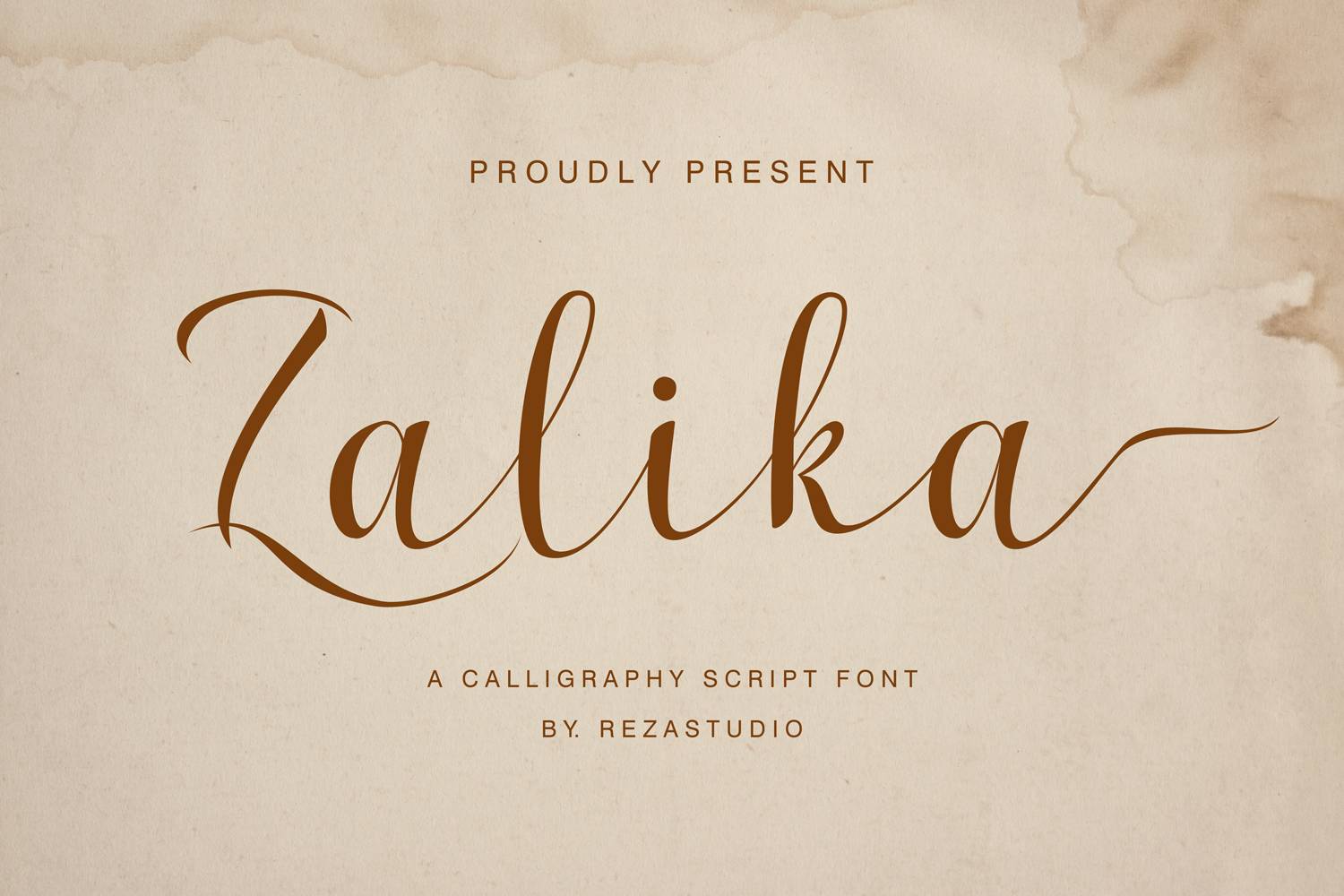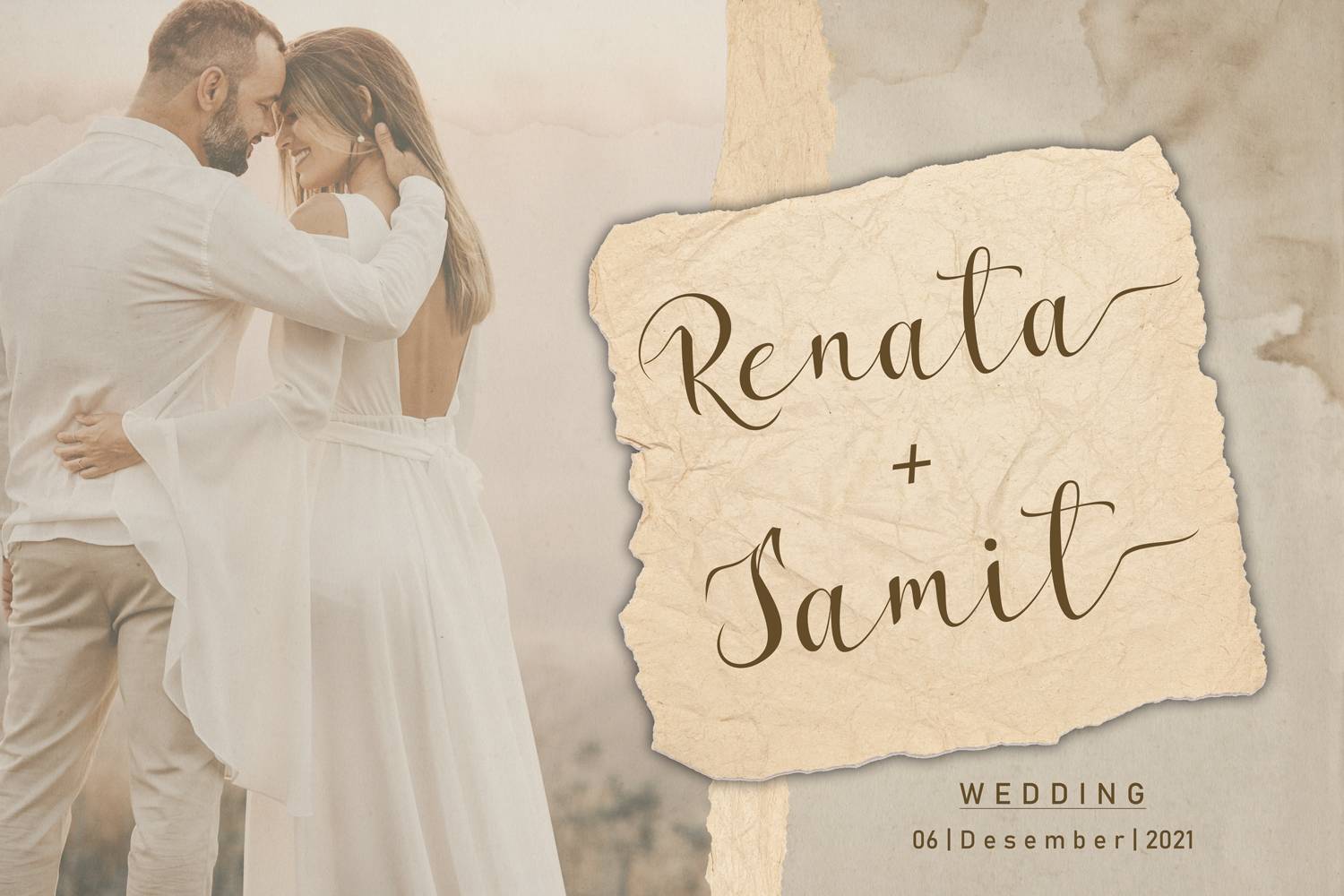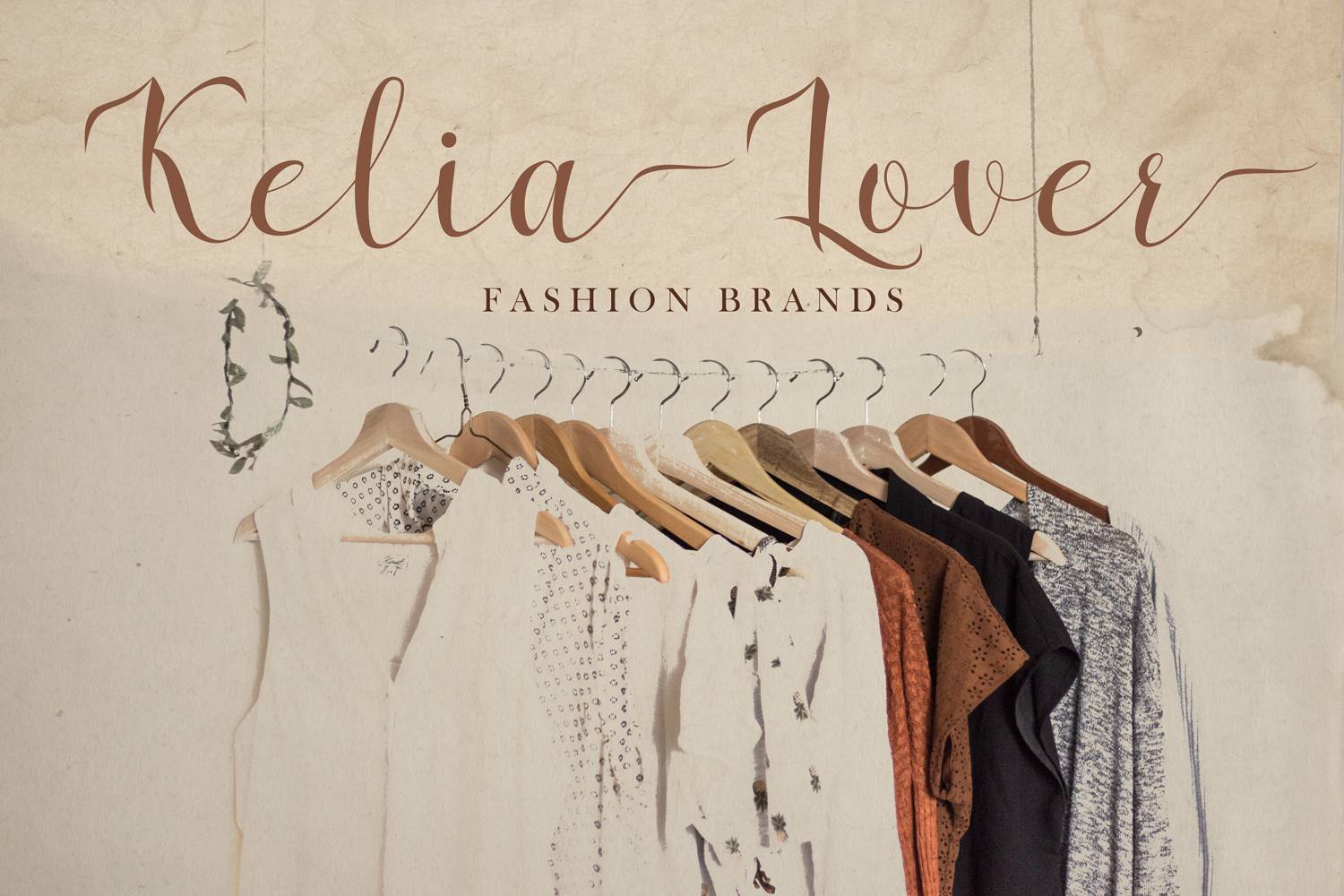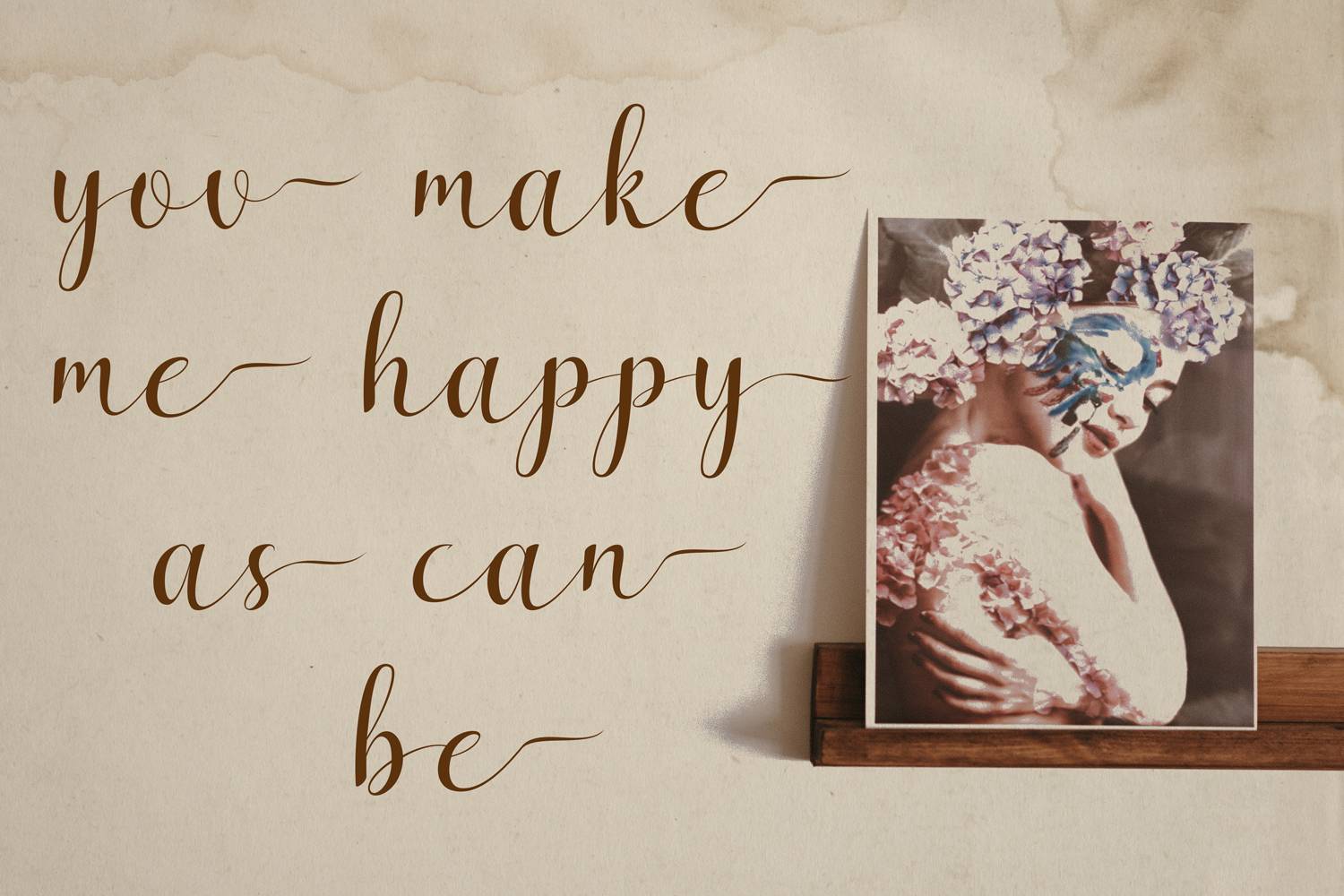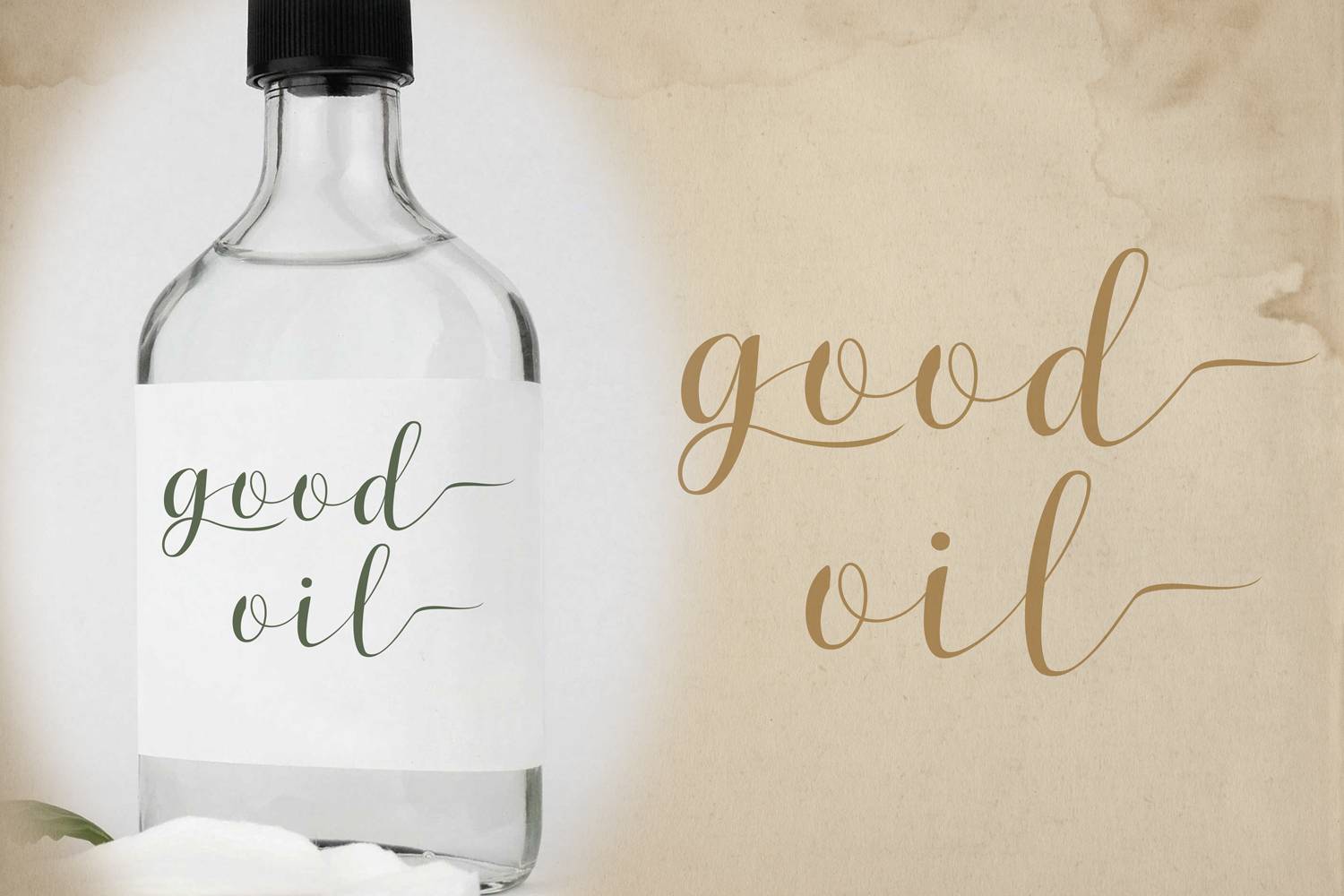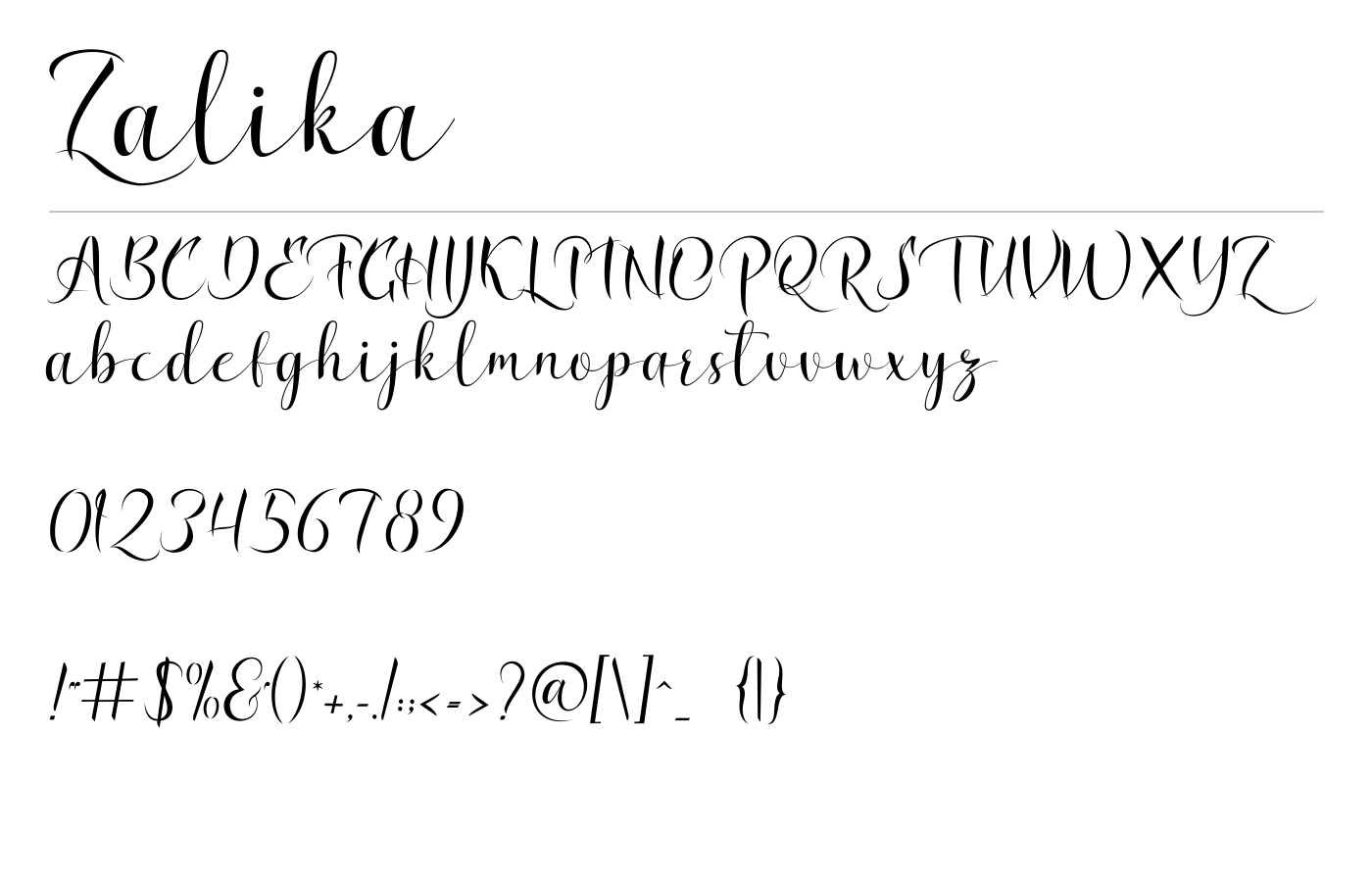
Zalika is an elegant script font with flowing, delicate strokes and graceful curves that convey a sophisticated and charming personality. Its slender, calligraphic style is perfect for luxury branding, wedding invitations, and editorial headlines where a refined, artistic touch is desired. This font works beautifully in contexts that need a stylish and feminine feel, enhancing the visual appeal with its light, airy letterforms.
Zalika Font